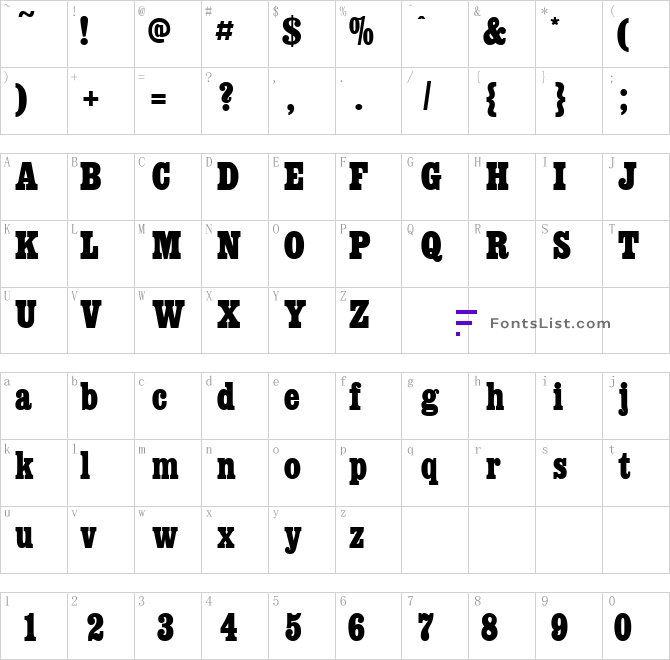
- Font Name:AIEgyptianConBolSma
AIEgyptianConBolSma.ttf is a very beautiful artistic font, AIEgyptianConBolSma.ttf is widely used in the design and printing of various books and pictures,AIEgyptianConBolSma.ttf has a strong visual impact,AIEgyptianConBolSma.ttf is a commonly used font in newspapers, magazines and books, and is used in posters, e-commerce Poster design, store design, logo design, font design and other fields.AIEgyptianConBolSma.